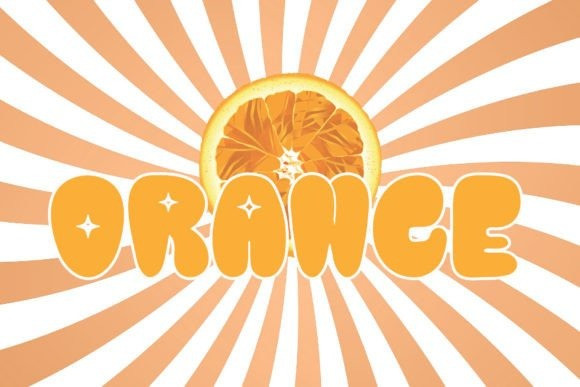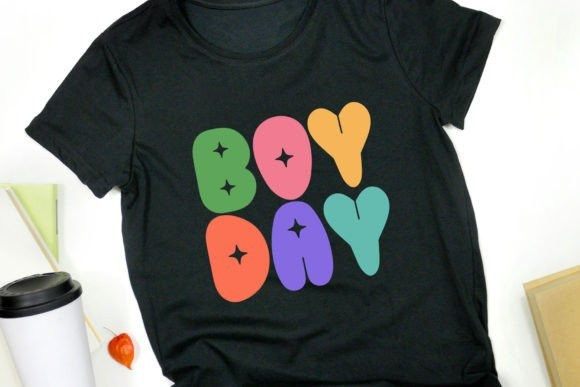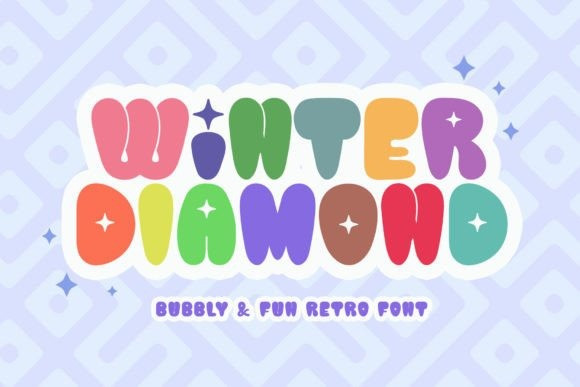
Winter Diamond Font
Winter Diamond Font is a playful and bold retro font. It combines cuteness and vintage vibes for the perfect result. No matter the topic, this font will be an incredible asset to your fonts’ library, as it has the potential to elevate any creation.